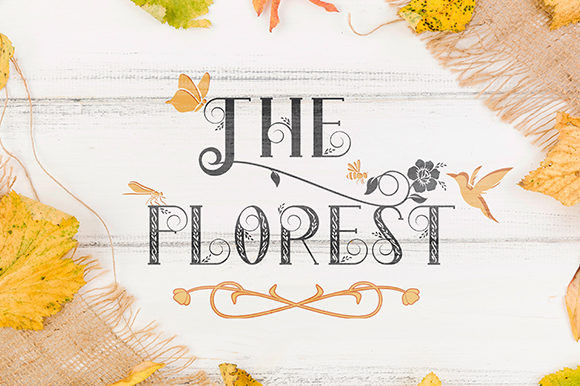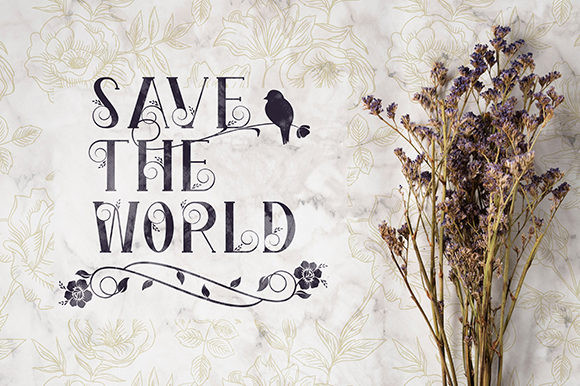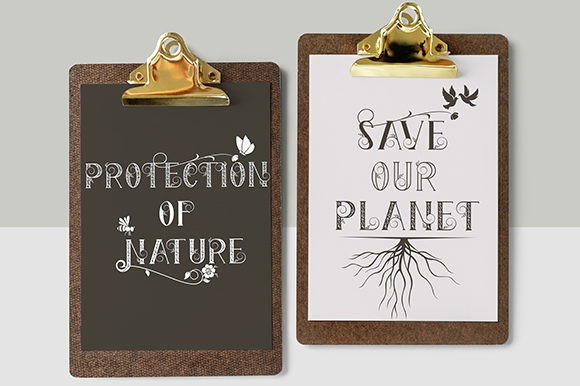
The Florest Font
The Florest is a display type font inspired by the beauty of nature on florest island, Indonesia. The Florest has a characteristic impression of nature that will beautifully translate into a wide variety of design ideas.